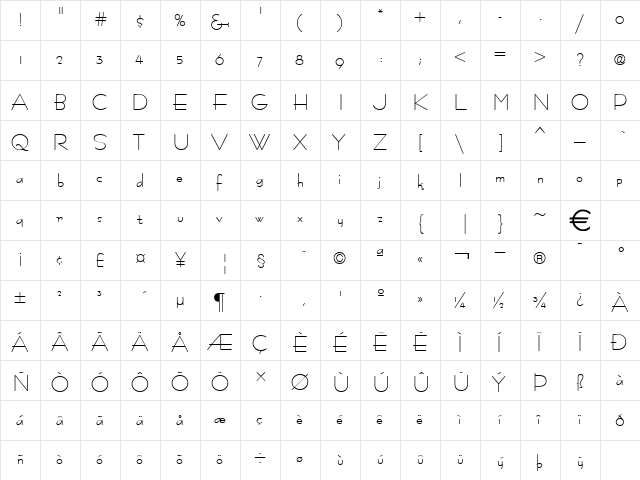
Racetrac Normal
Design Context for Racetrac Typeface
Racetrac is a composed and adaptable typeface that performs quietly and consistently across a wide range of design contexts.